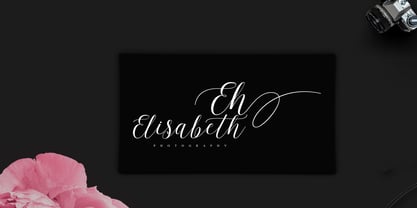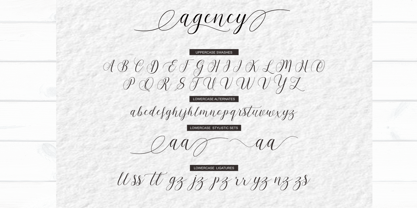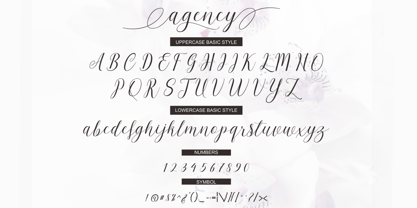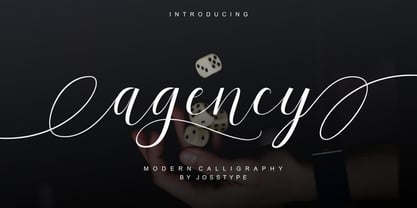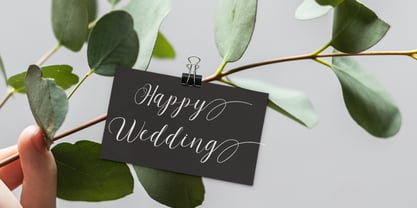
Agency Script
by Josstype
The Agency Script Font Family was designed by Teuku Zulfikar and published by Josstype. Agency Script contains 2 styles and family package options.
Agency Script is a handwritten typeface with classic root. a beautiful formal script and elegant touch. It works perfect in the world of weddings, logos, greeting cards, branding, print ads, quotes, signage, magazines etc.
Agency Scrip features 339+ glyphs and 166 alternate characters. including initial and terminal letters, alternates, swashes, ligatures and multiple language support.
Designers: Teuku Zulfikar
Publisher: Josstype
Foundry: Josstype